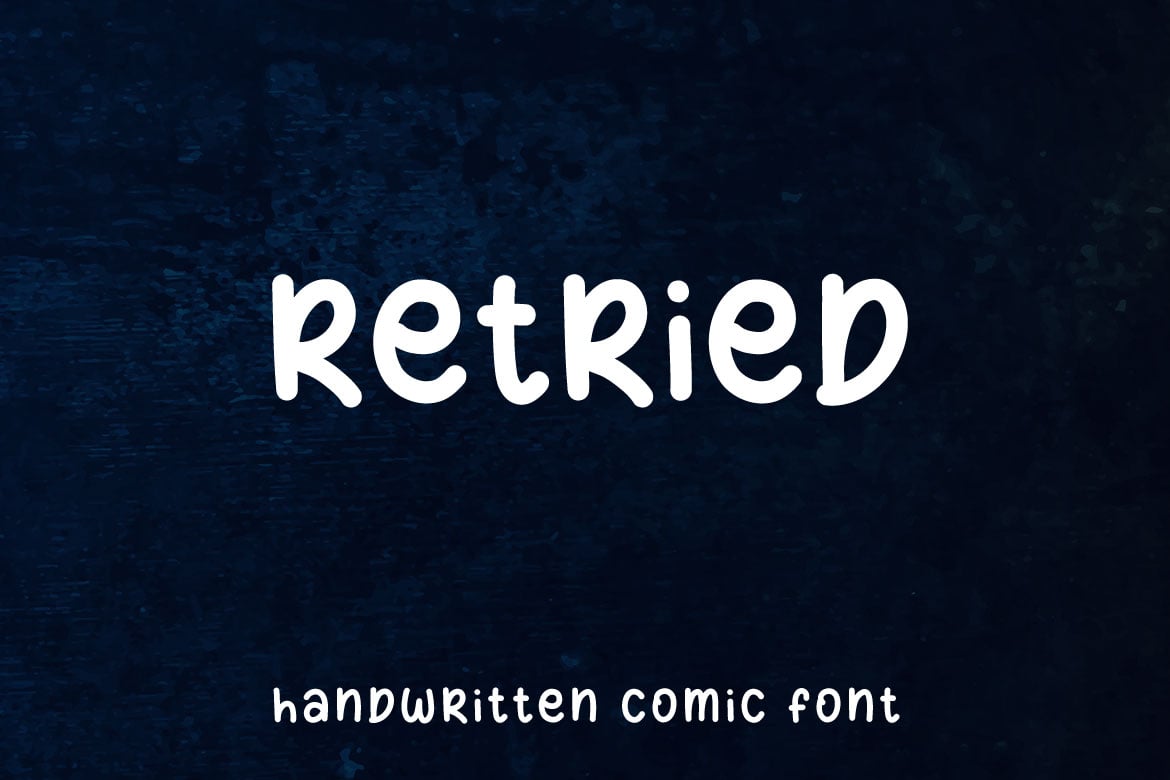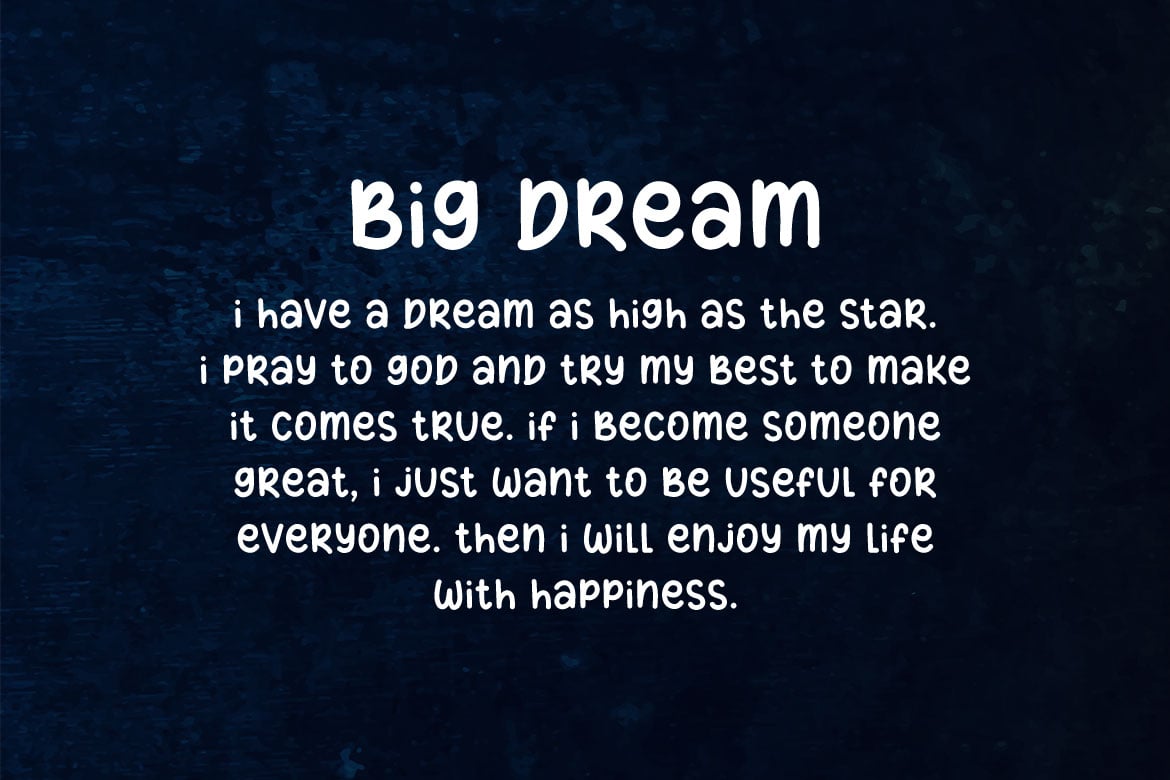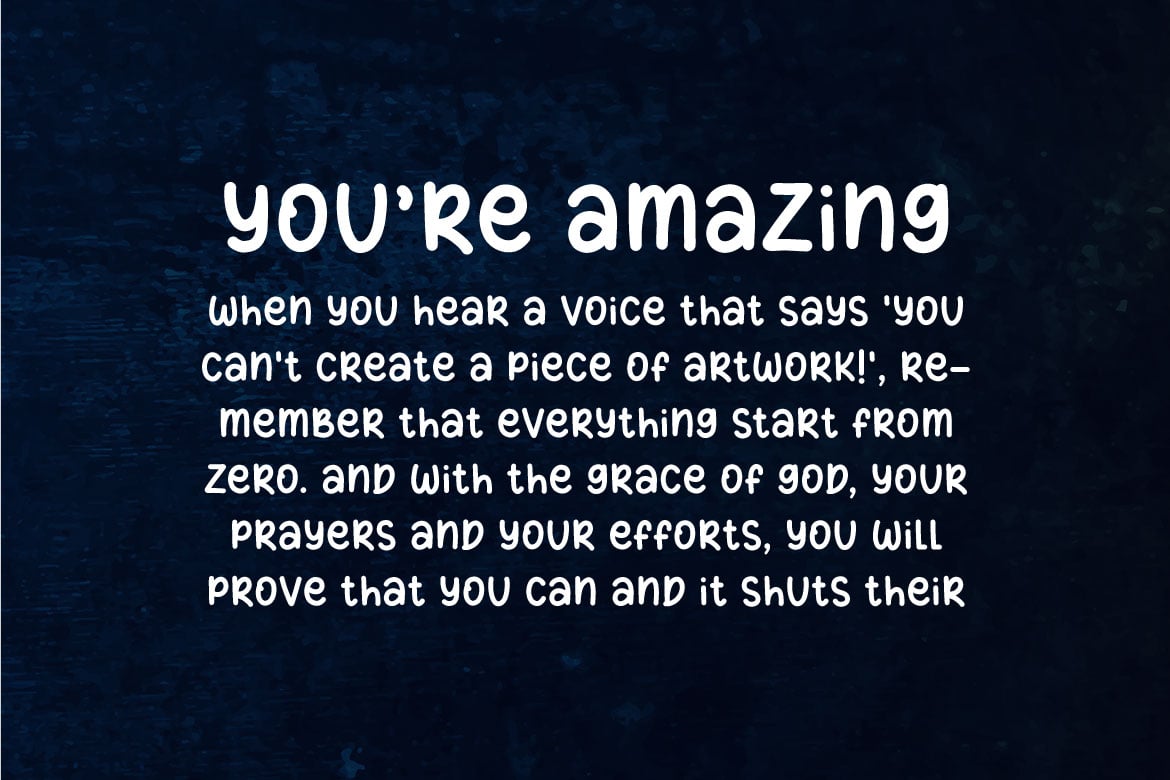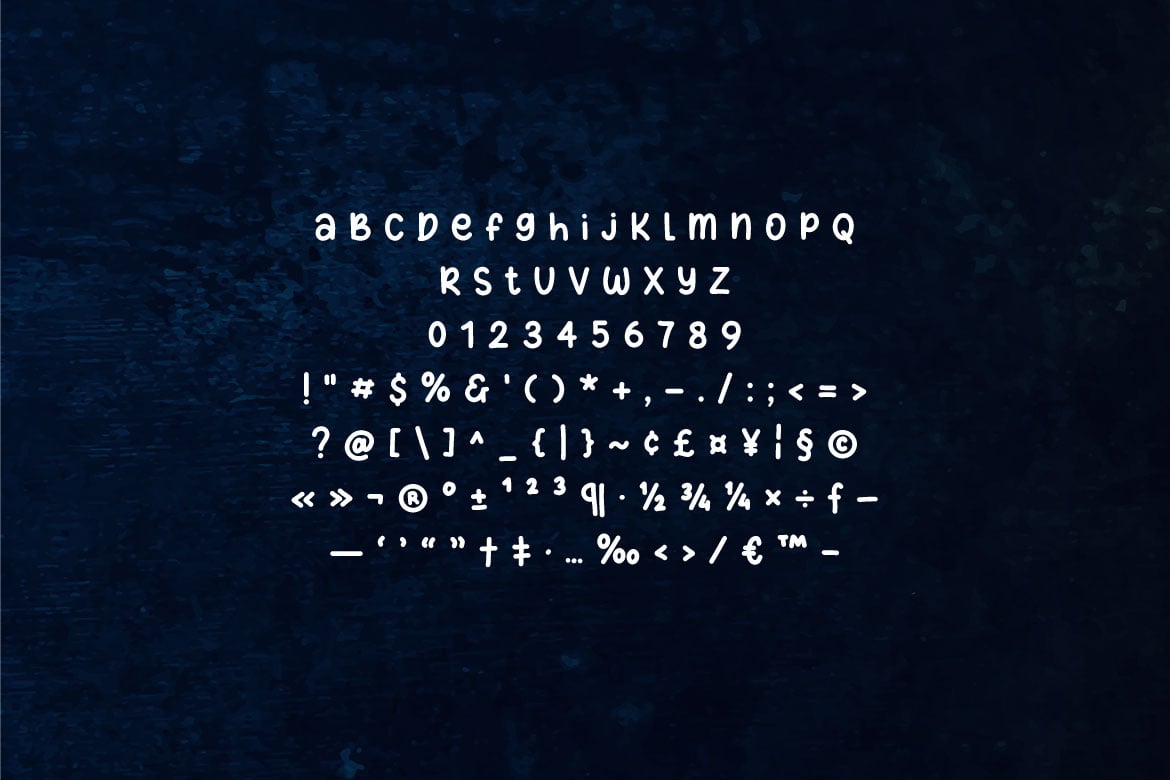
Retried – Minimalist Playful Comic Font
Hello! Retried is a minimalist handwritten comic font.
Retried can be used in any works such as comic book, poster, school, flyer, book title, advertisement, social media content, logo and many more.